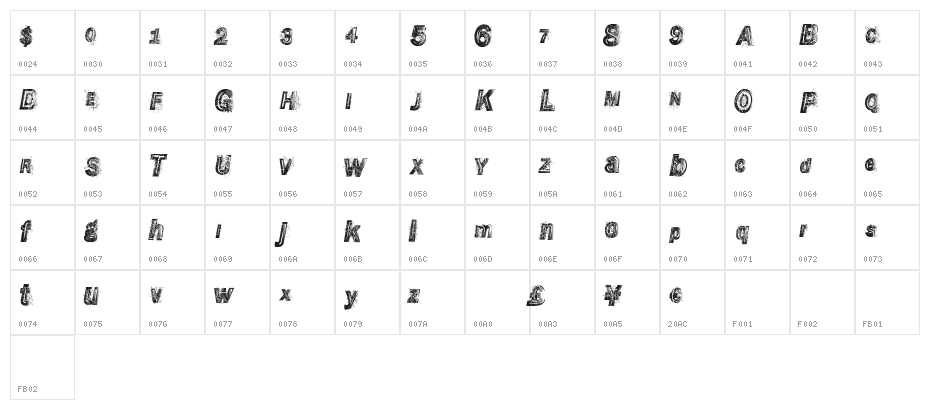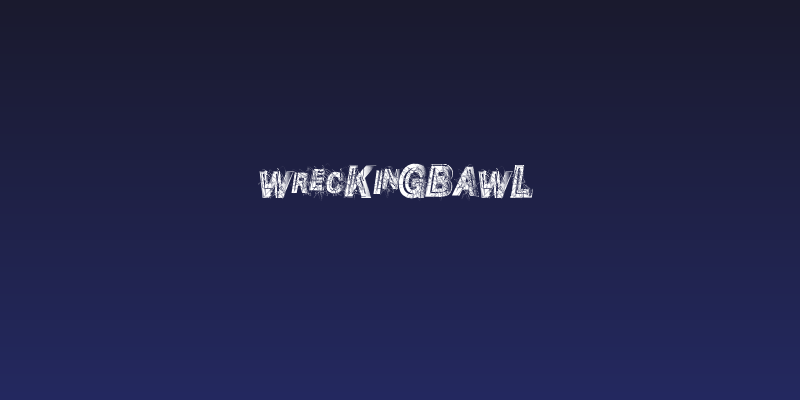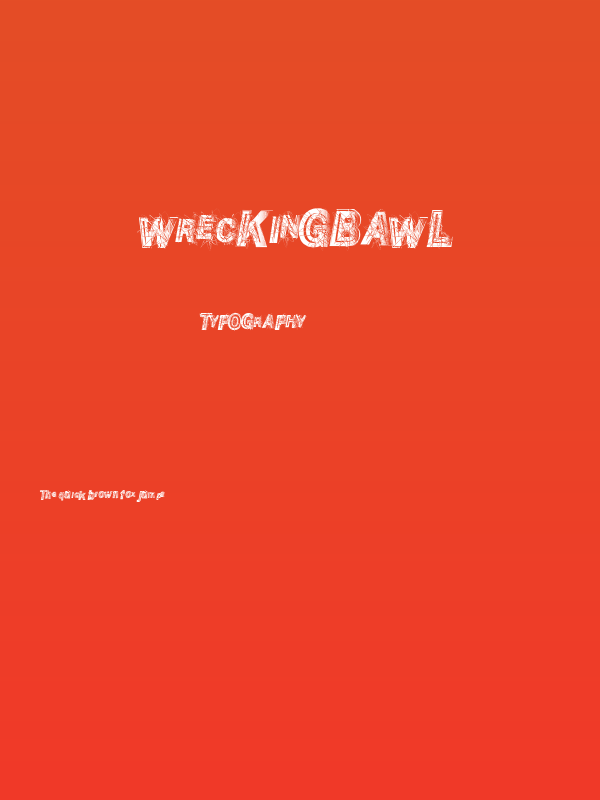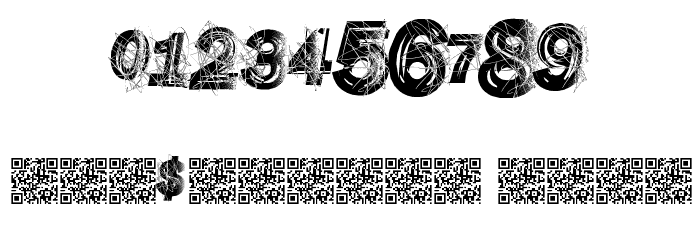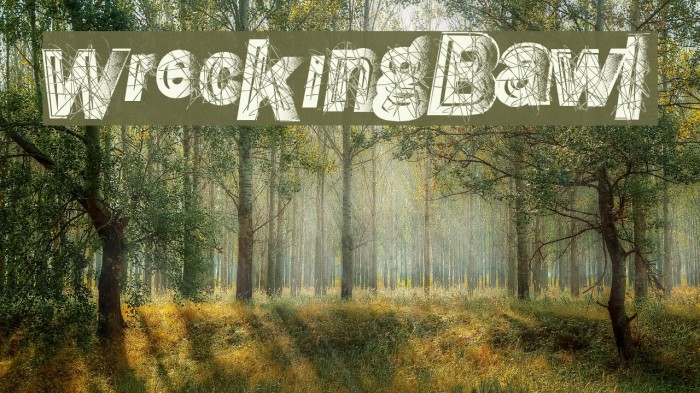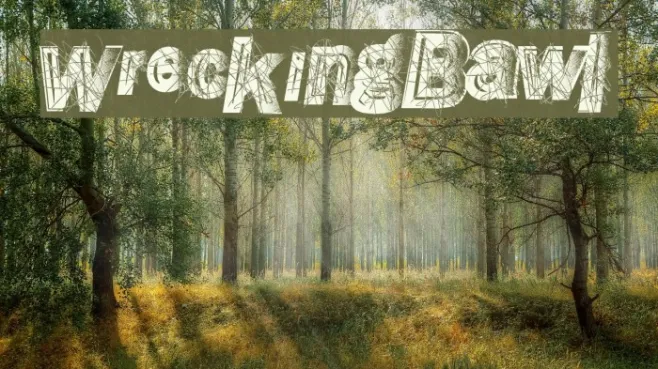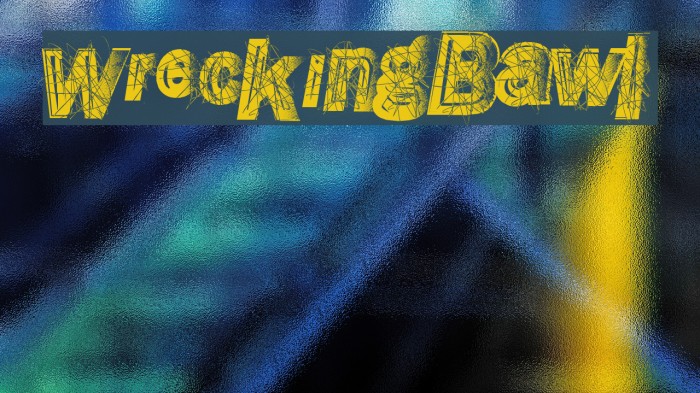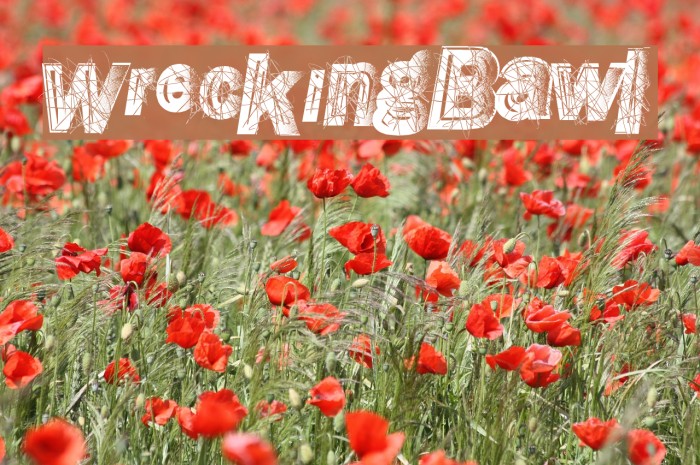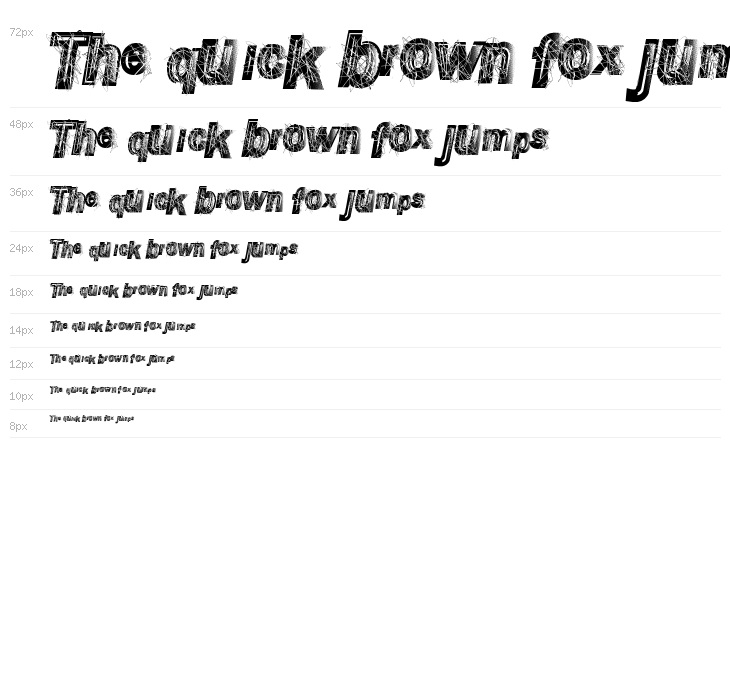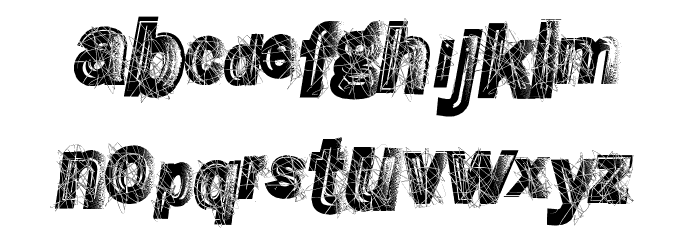
WreckingBawl Font
WreckingBawl Description
This font features a bold and dynamic design with a unique, distressed texture that resembles shattered glass or a web of cracks. The letters are thick and robust, with an irregular pattern overlay that adds a sense of movement and chaos. This style is eye-catching and unconventional, making it stand out in any design. The uppercase and lowercase letters maintain a consistent weight, while the numbers and special characters follow the same aesthetic, ensuring a cohesive look across all text elements.